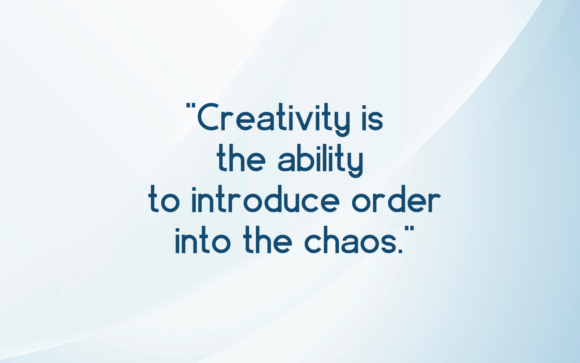
Where Creativity Meets Precision
Remember the moment when you stumbled upon the perfect font for your design project? The excitement, the thrill of bringing your idea to life? It’s a feeling that designers know all too well. And what if I told you that there’s a typeface that can evoke that same sense of excitement and professionalism? Say hello to Edge Line Font, a modern and authoritative font that’s about to revolutionize the way you approach design.
Edge Line Font is more than just a font – it’s a statement piece that exudes confidence and sophistication. With its sharp edges and well-proportioned spacing, it’s the perfect addition to any branding, corporate identity, or editorial design project. Whether you’re a seasoned designer or just starting out, Edge Line Font is a valuable tool that can elevate your work and help you stand out in a crowded industry.
Edge Line Font Key Features
- Unique edge line design that creates a subtle, textured effect, adding depth and visual interest to text and other design elements.
- Supports a wide range of languages, including Latin, Cyrillic, and Greek, making it a versatile font for global communication and design projects.
- Optimized for use in body text, headings, and display text, allowing for flexible application in various design contexts.
Edge Line Font Review
Overall, I was quite impressed with Edge Line Font. It’s a sleek and modern sans-serif typeface that’s perfect for creating a clean and professional look.
- Elegant and refined design that’s ideal for corporate branding and advertising materials.
- Excellent legibility, even at small font sizes.
- Wide range of weights and styles to choose from, making it versatile for various design projects.
- May not be suitable for text-heavy content due to its clean and minimalist design.
- Lack of bold, striking characteristics, which may make it less attention-grabbing compared to other fonts.
- Not ideal for creative or artistic projects where a more expressive font is needed.
Overall, Edge Line Font is a solid choice for designers who want a clean and professional typeface. While it may have some limitations, its elegance and legibility make it a great option for corporate branding and advertising materials.
Edge Line Font is perfect for creating modern and sleek headings in your Canva designs.
Edge Line Font is ideal for creating clean and minimalist typography in your Adobe designs.
Edge Line Font is great for adding a touch of modernity to your presentations and documents.
Tips for Getting the Most Out of Edge Line Font
Use Edge Line Font sparingly to avoid overwhelming your design.
Pair Edge Line Font with bold or italic fonts to create visual interest.
Experiment with different font sizes and styles to achieve the perfect look.
Alternatives to Edge Line Font
Open Sans is a modern sans-serif font that works well for digital products and web design. It’s clean, elegant, and highly legible. Use it for body text and headings to create a cohesive design. Compared to Edge Line Font, Open Sans is more versatile and suitable for a wider range of applications.
Lato is a sans-serif font that’s perfect for modern and minimalist designs. It’s highly customizable and comes in various weights. Use it for headings and titles to add a touch of sophistication. Compared to Edge Line Font, Lato is more versatile and has a wider range of font weights.
Montserrat is a geometric sans-serif font that’s perfect for urban and modern designs. It’s highly legible and works well for body text and headings. Use it to create a bold and edgy look. Compared to Edge Line Font, Montserrat is more geometric and has a stronger emphasis on typography.
Inter is a modern sans-serif font that’s designed for digital products and web design. It’s highly legible and works well for body text and headings. Use it to create a clean and minimalist design. Compared to Edge Line Font, Inter is more modern and has a wider range of font weights.